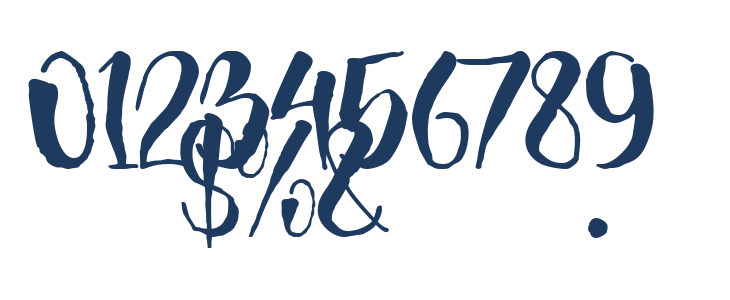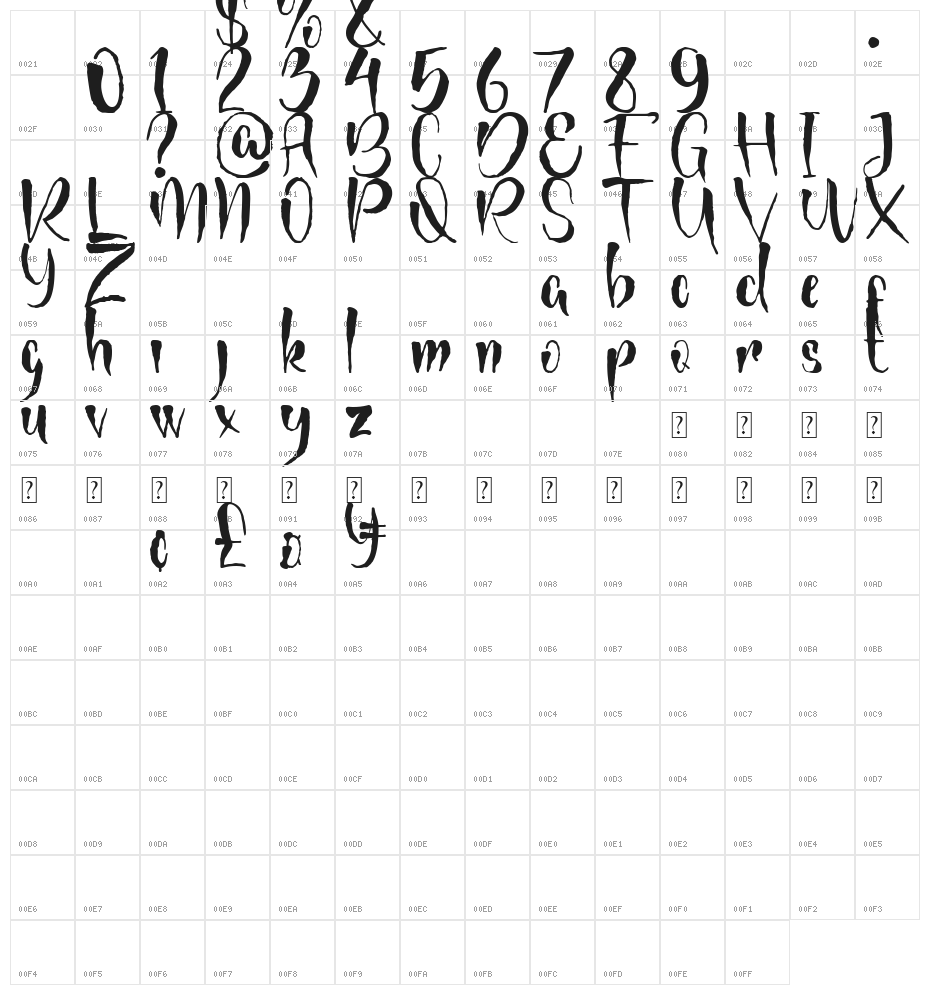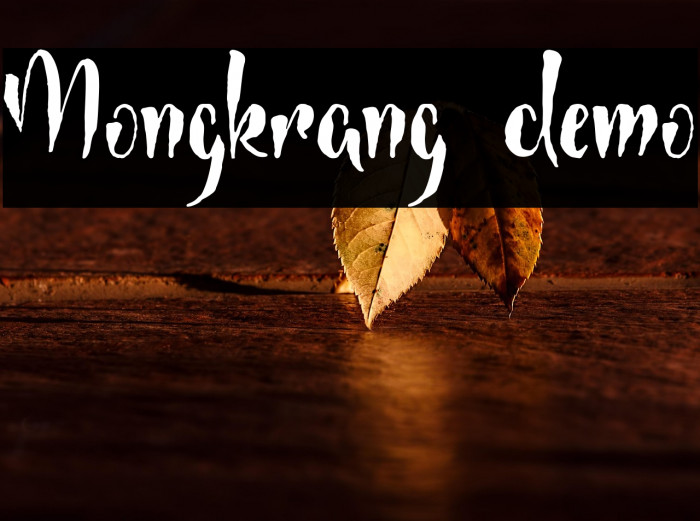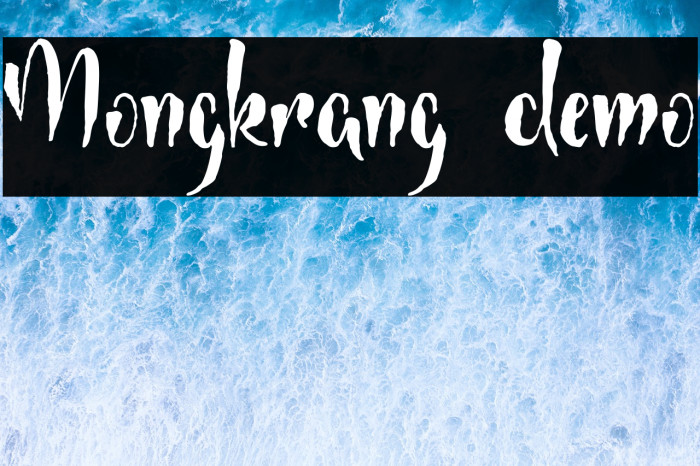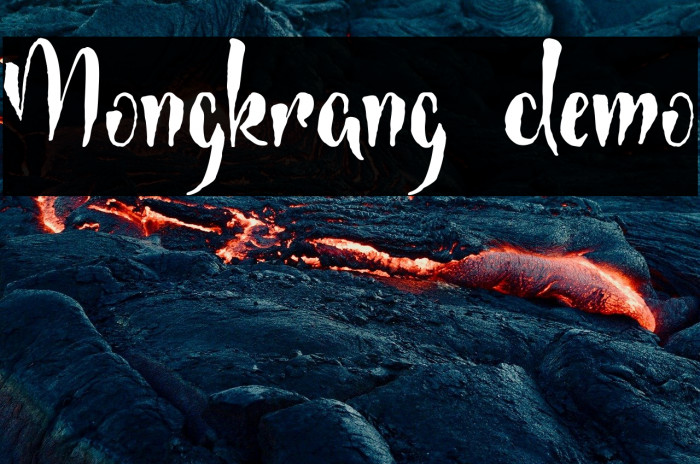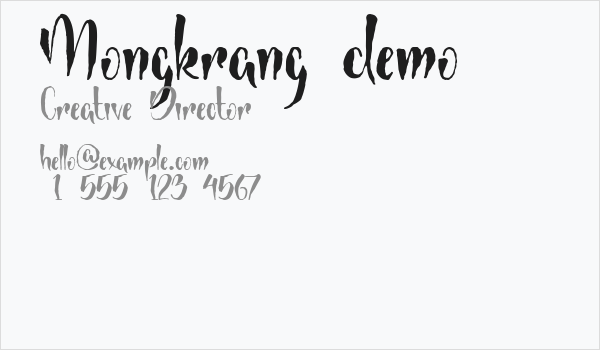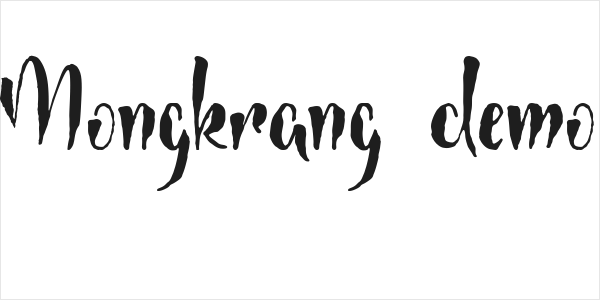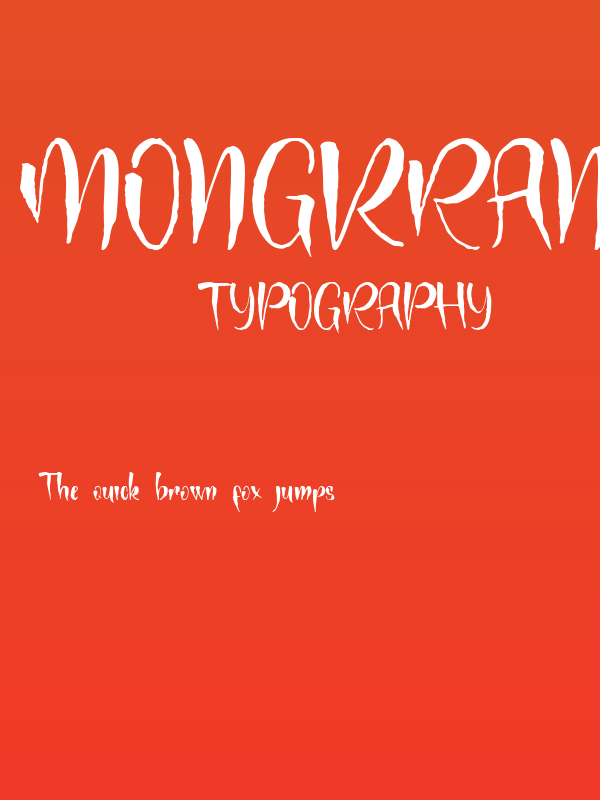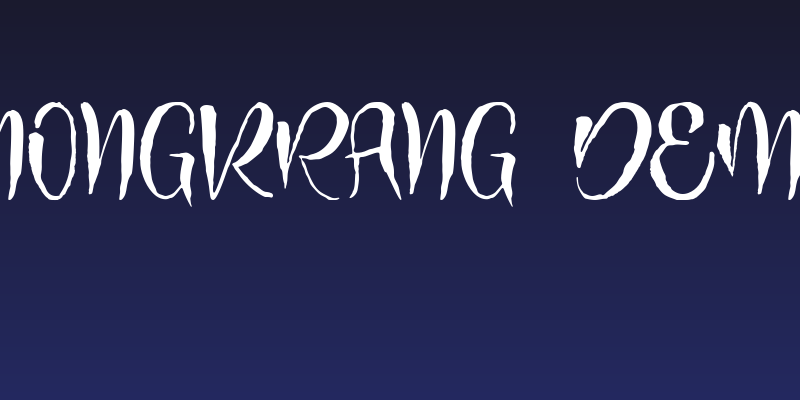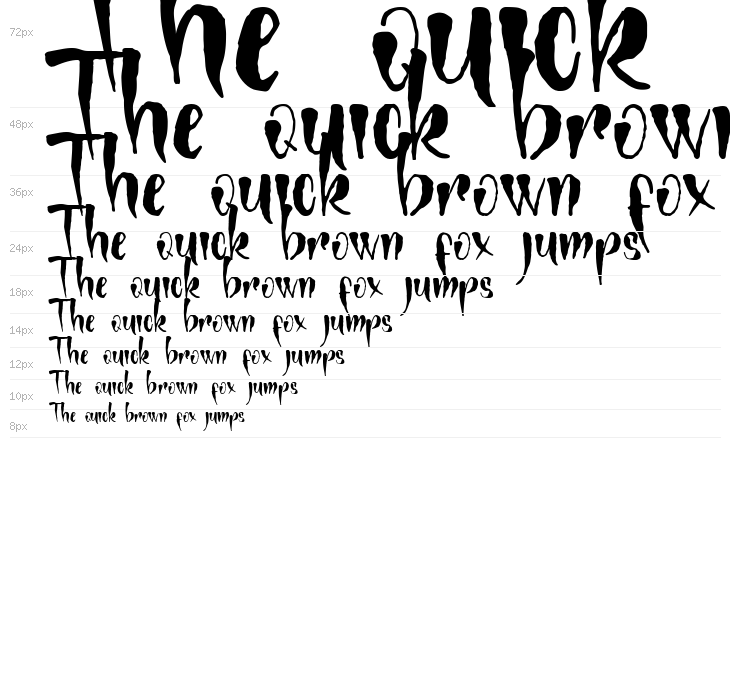
Mongkrang demo Font
Mongkrang demo Description
This font features a dynamic and expressive style, characterized by its brush-like strokes and fluid forms. The letters exhibit a sense of movement and energy, with varying stroke widths that create a lively and artistic appearance. The uppercase letters are bold and striking, while the lowercase letters maintain a consistent flow, enhancing the overall aesthetic. The numerals and special characters are crafted with the same artistic flair, making them stand out. This font's unique style is perfect for projects that require a touch of creativity and individuality.
| Use Case | Logos, Headlines, Artistic designs |
| Proposed Projects | Ideal for creative projects such as posters, branding, invitations, and artistic designs. |